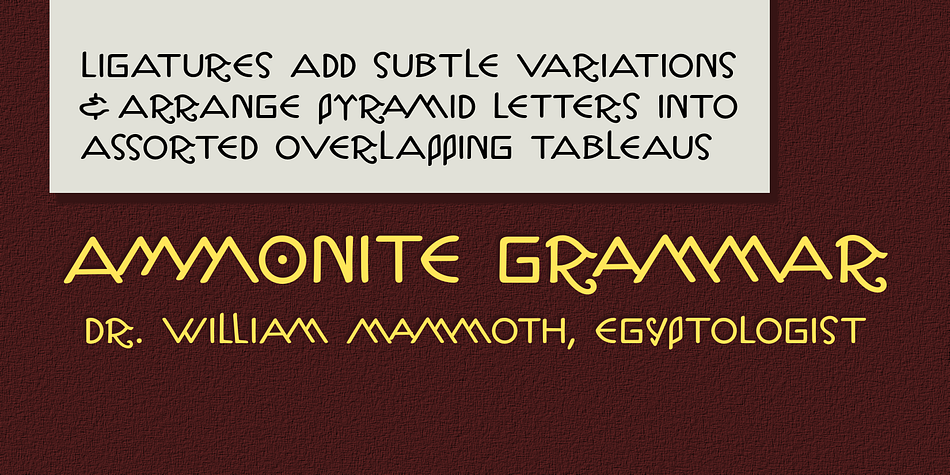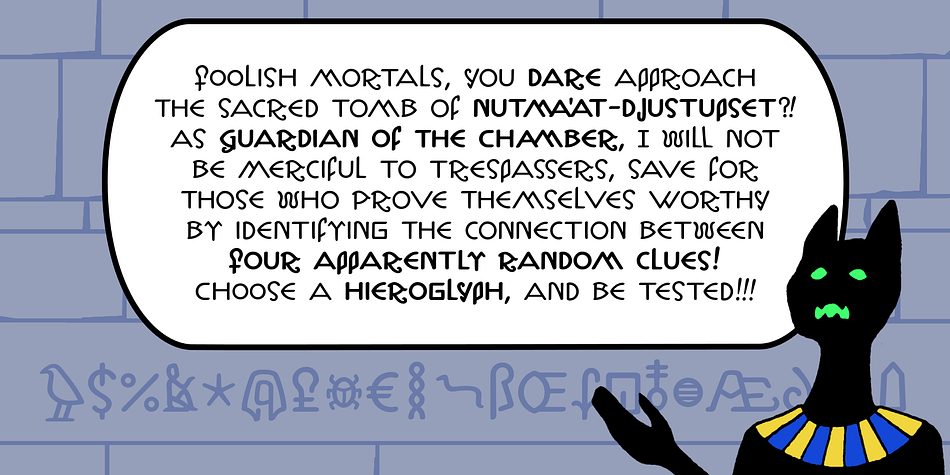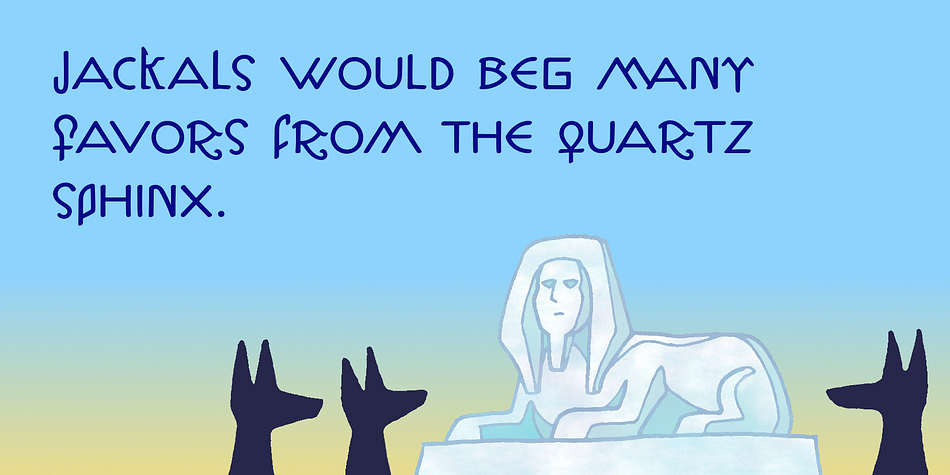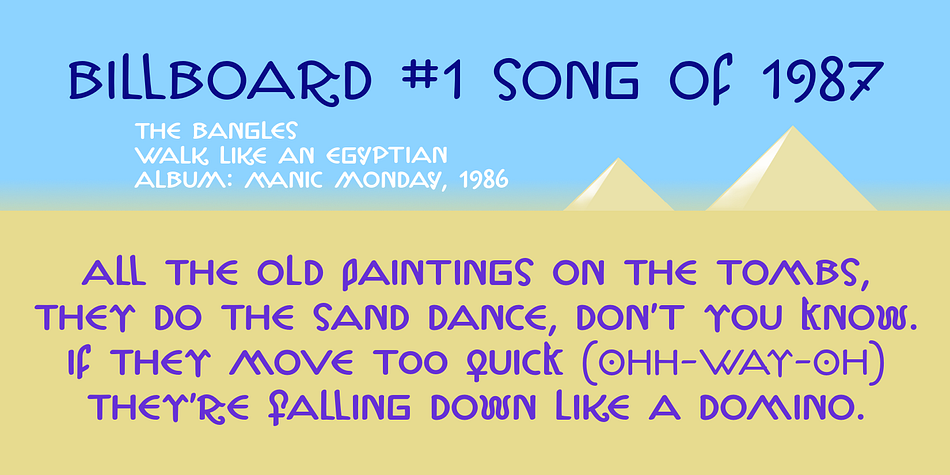
Designed by K. Pease, Walklike is an exotic and novelty font family. This typeface has two styles and was published by Cerulean Stimuli .
You’ve searched all over for “Egyptian fonts” but, thanks to a quirk of type jargon history, much of what you found is not what you had in mind for the voice of Thoth in your comic book, or the hints in your Mummy’s Tomb game. And you don’t want to fall back on You-Know-What. Fear not; now there’s Walklike!
Pyramids, reeds, the Eye of Horus, and other recognizable symbols inspire the letterforms of Walklike to create the feel of Ancient Egyptian hieroglyphs while remaining fully legible. The strokes are casual but careful, at home in ink or stone alike, and kept interesting and natural-looking automatically with ligatures and contextual alternates. The air of ancient mystery is unmistakable!